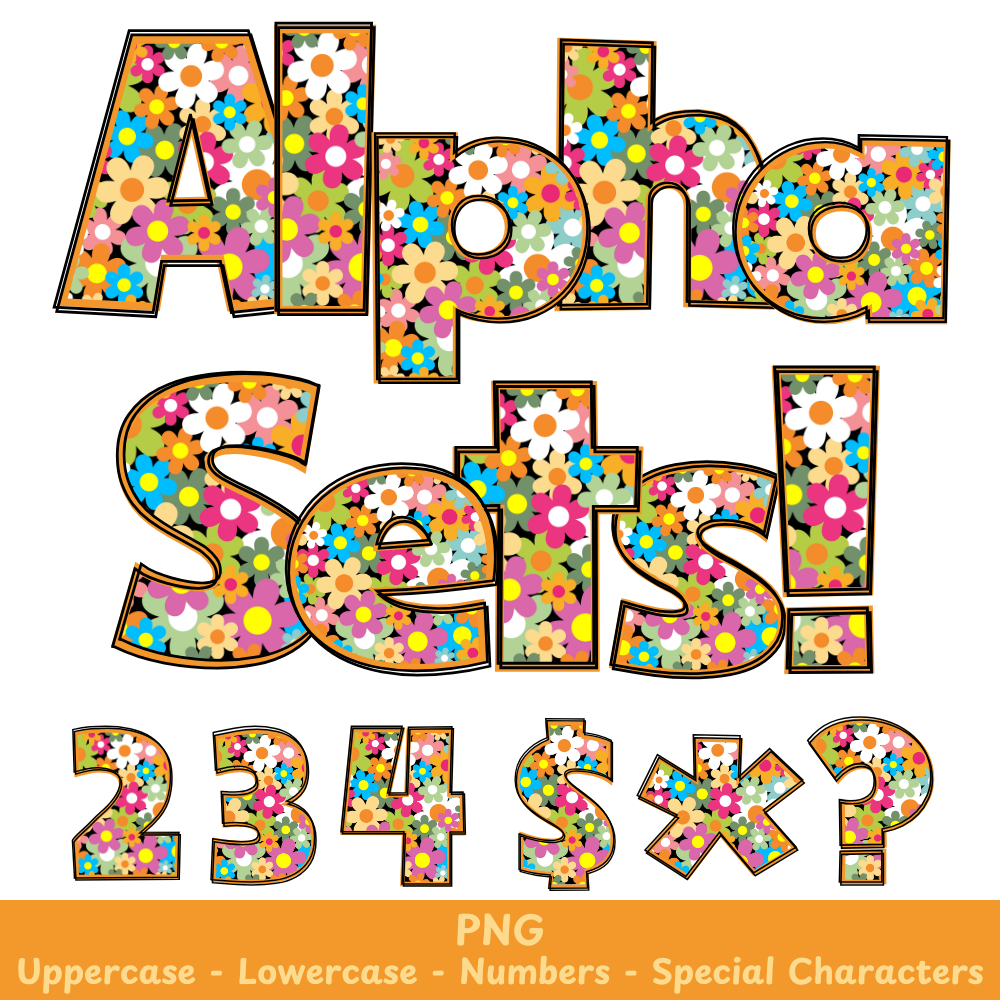
Orange Flowers PNG Font
Orange Flowers Alpha Set PNG Font Pack
This Orange Green Flowers PNG Font is perfect for all your crafting needs. Use it in sublimation projects or other creative endeavors to add a unique touch. With vibrant orange and green hues, this font is sure to make your designs stand out.